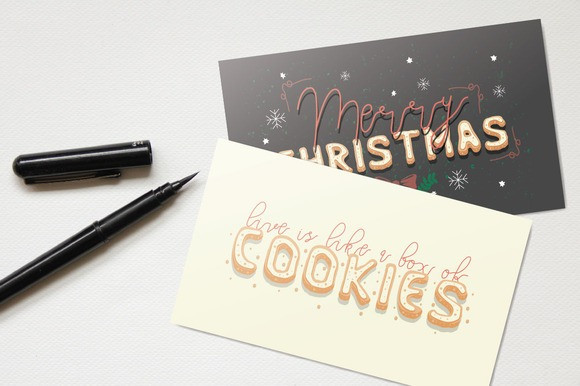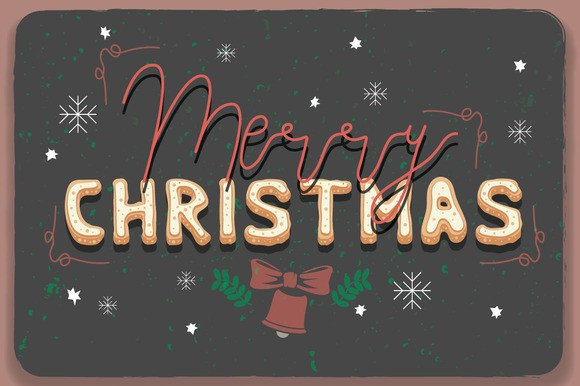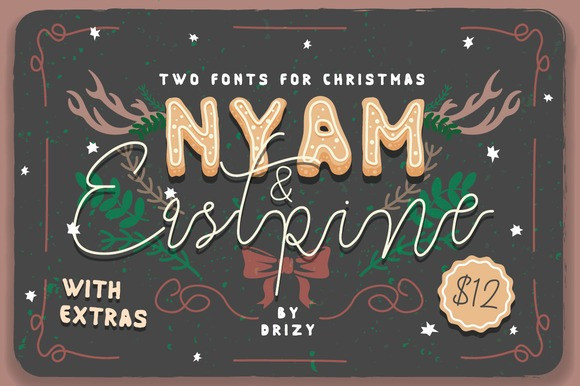
Nyam Font
Nyam and Eastpine is the ultimate Christmas font family that comes with 7 fonts.
The perfect set to mix and match and create Christmas Cards, Ornaments and much more.
Nyam is a layered font that draws it inspiration from Christmas cookies. Eastpine is a modern monoline-type font.
Eastpine – Comes with uppercase & lowercase characters. Also includes numerals and a large range of punctuation.
Nyam Complete – It’s all the layers of the Nuam font in one!
Nyam Extras – A beautiful Christmas themed dingbats font. Packed with labels and other cute ornaments.
Nyam Regular – The first and basic layer of the Nyam font (you can use this to make a shadow).
Nyam Shape – The second layer that goes on top of Nyam Regular. You can also use this as a single layer.
Nyam Topping 1 – The third and final layer that goes on top of Nyam Shape.
Nyam Topping 2 – The final topping layer that fits on Nyam Shape but also on Nyam Topping 1.
There you have it. The ultimate Christmas font with beautiful layers. Time to get creative and create beautiful designs.